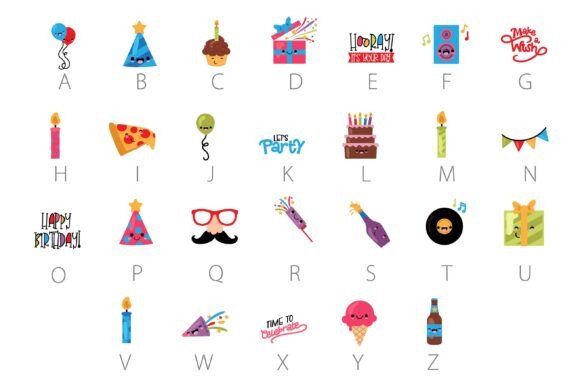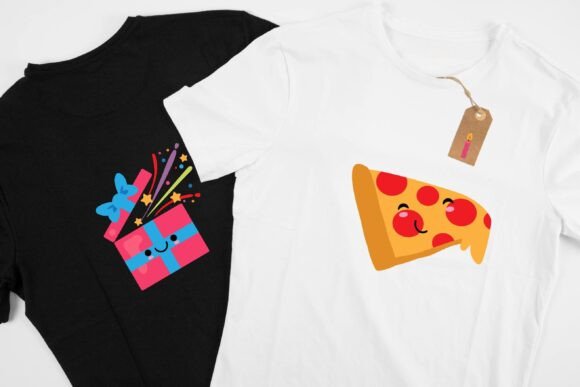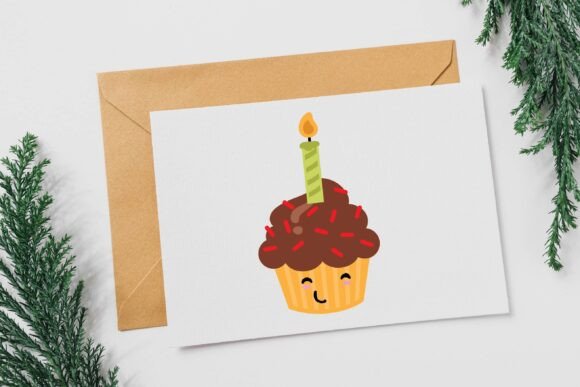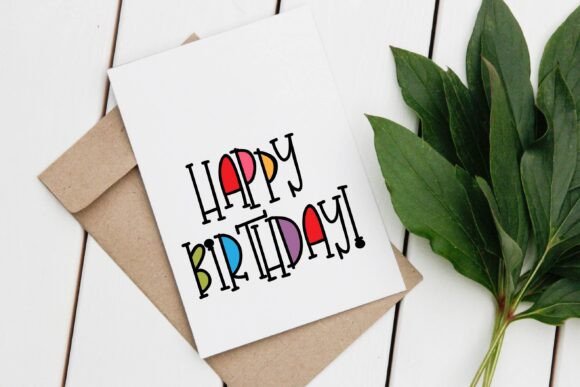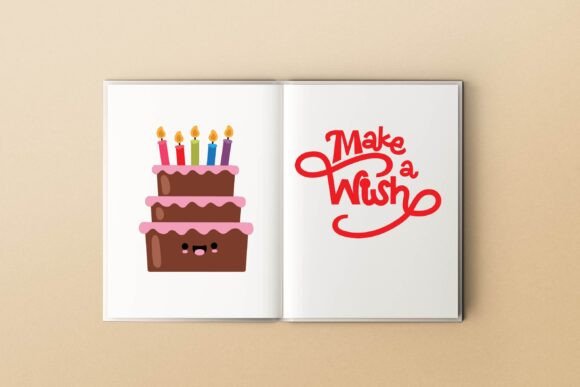
The Ultimate Party Accessory for Your Designs
You know that moment when you’re working on a project and you just need something to make it pop? Whether it’s a birthday invitation, a social media graphic, or a packaging design, that little something extra can be the difference between a meh design and a wow design. For designers, finding the perfect element to elevate their work can be a challenge, but what if you had a font that could bring the party to your project?
Enter the Celebratory Font, a delightful dingbat font featuring 26 adorable, celebratory images that are sure to add a touch of fun and whimsy to your designs. With this valuable tool, designers can save time, simplify their process, and create visuals that truly stand out. The Celebratory Font is an OpenType full-color (SVG) font, making it easy to install and use in your favorite design programs.
Celebratory Font Key Features
- Unique Characteristics: The font features intricate, hand-drawn designs and ornaments, adding a touch of elegance and sophistication to any text-based application.
Celebratory Font Review
I recently had the chance to work with the Celebratory Font, and I must say, it’s a unique addition to any design project ✨. The font’s playful, hand-drawn feel adds a touch of whimsy and excitement to text-based elements.
The Celebratory Font excels in the following areas:
- Emotional Expression: The font’s expressive qualities make it perfect for conveying emotions and adding a sense of personality to your designs.
- Flexibility: Celebratory Font works well in a variety of contexts, from social media graphics to print materials.
- Customization: The font’s versatility allows for easy customization to fit your brand’s unique style.
However, there are a few limitations to consider ⚠️:
- Readability: In smaller sizes, the font’s unique characteristics can make it difficult to read, especially for those with visual impairments.
- Lack of Consistency: The font’s hand-drawn feel can sometimes result in inconsistent letterforms and spacing.
Overall, the Celebratory Font is a great choice for designers looking to add some personality to their projects. While it may not be suitable for all design contexts, its unique qualities make it a valuable addition to any design toolkit.
Tips for Getting the Most Out of Celebratory Font
Use Celebratory Font to add a touch of excitement and energy to your designs. Experiment with different font sizes, styles, and colors to create a unique look. You can also combine Celebratory Font with other fonts to create a visually appealing contrast.
Celebratory Font is perfect for creating eye-catching headings, titles, and announcements. It’s also great for designing invitations, social media graphics, and marketing materials that require a celebratory tone.